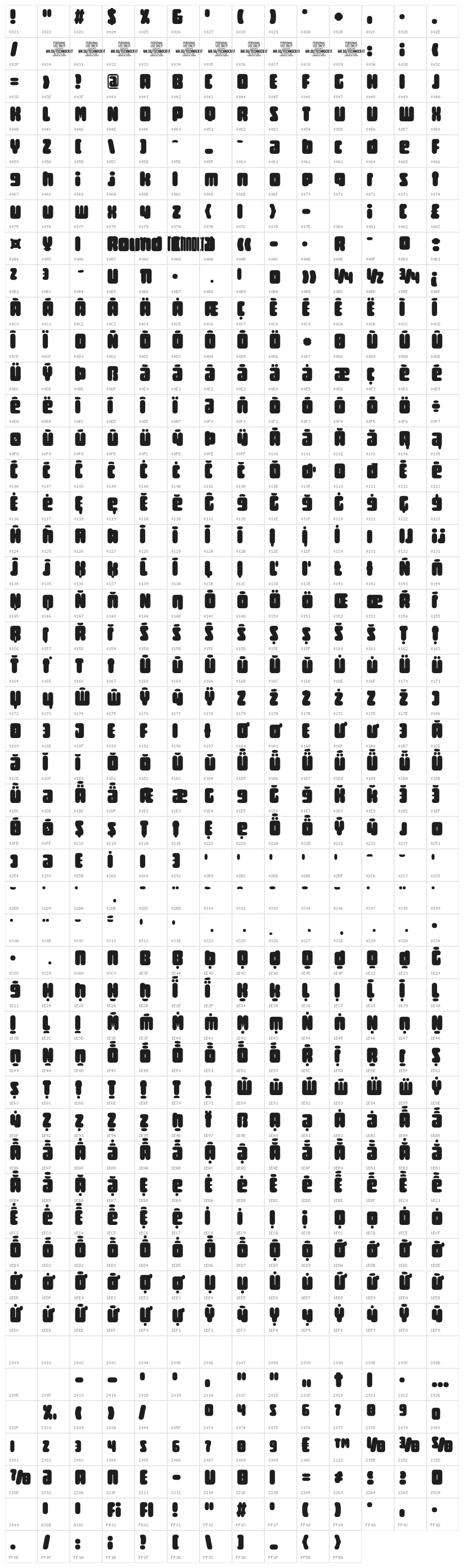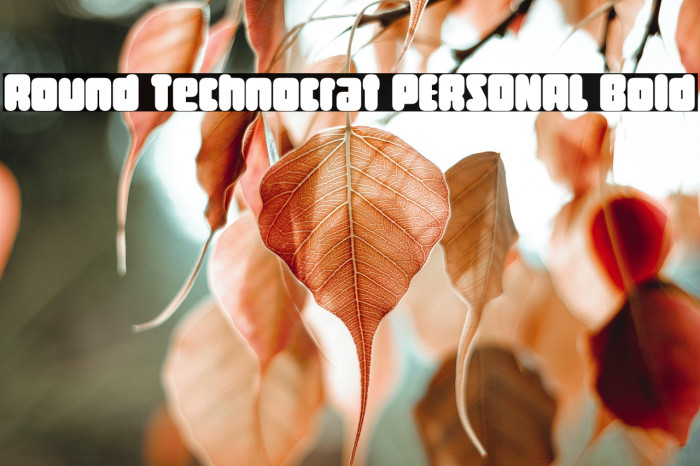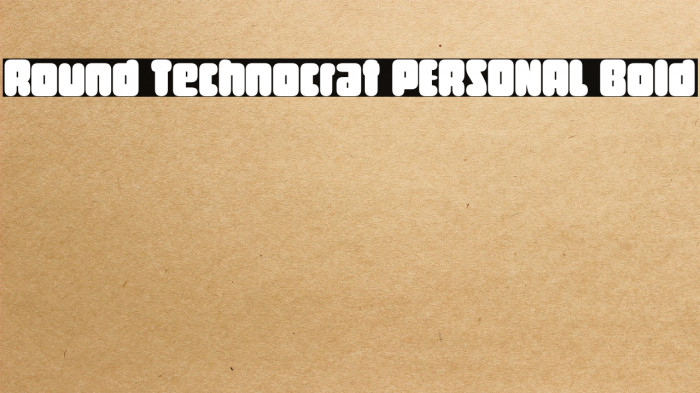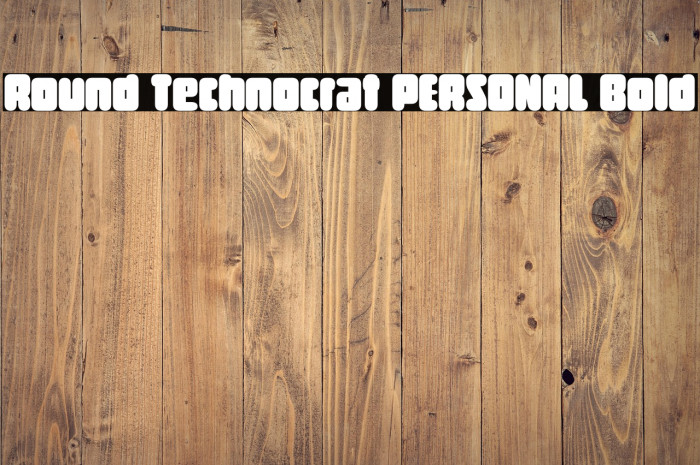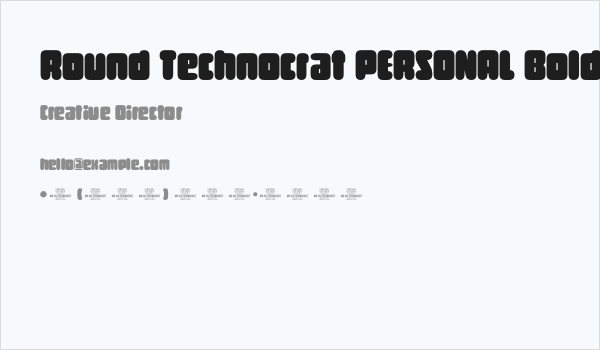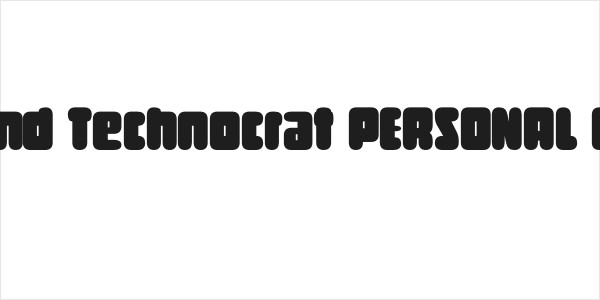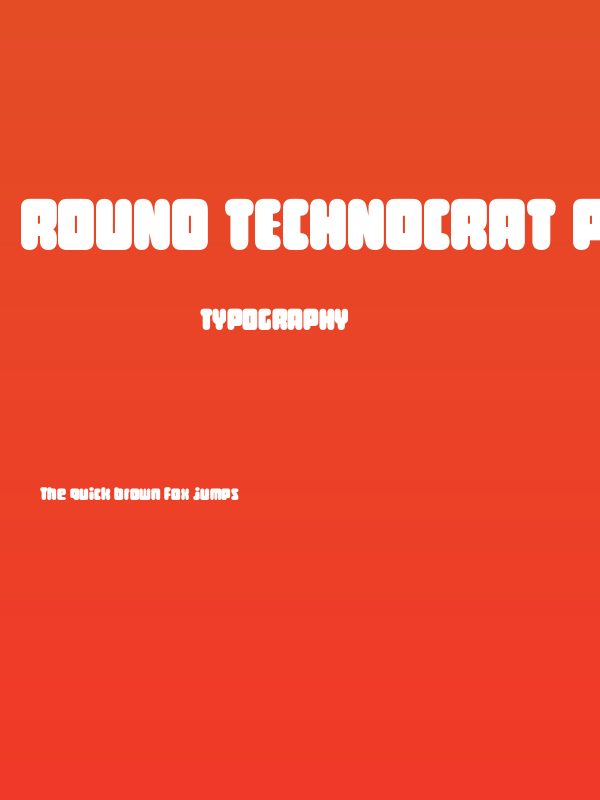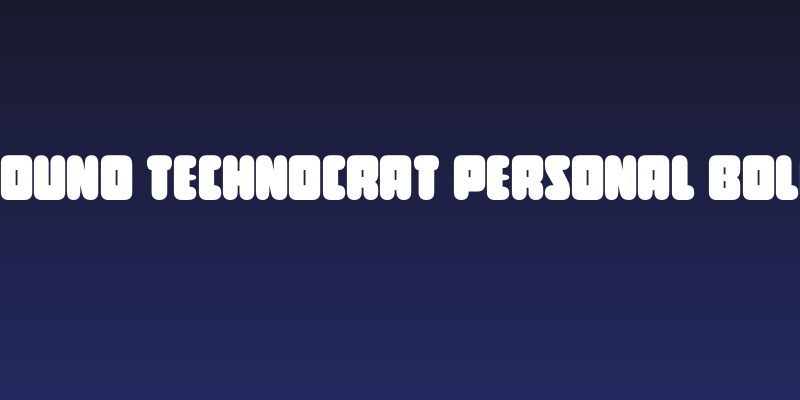
Round Technocrat PERSONAL Bold Font
Round Technocrat PERSONAL Bold Description
This font features a bold, rounded style with thick, uniform strokes that give it a strong and impactful appearance. The characters are wide and have a substantial presence, making them ideal for attention-grabbing designs. The rounded edges soften the overall look, adding a friendly and approachable feel. The font maintains consistent weight throughout, ensuring readability even at smaller sizes. Its unique style makes it suitable for modern and playful designs, where a bold statement is desired.